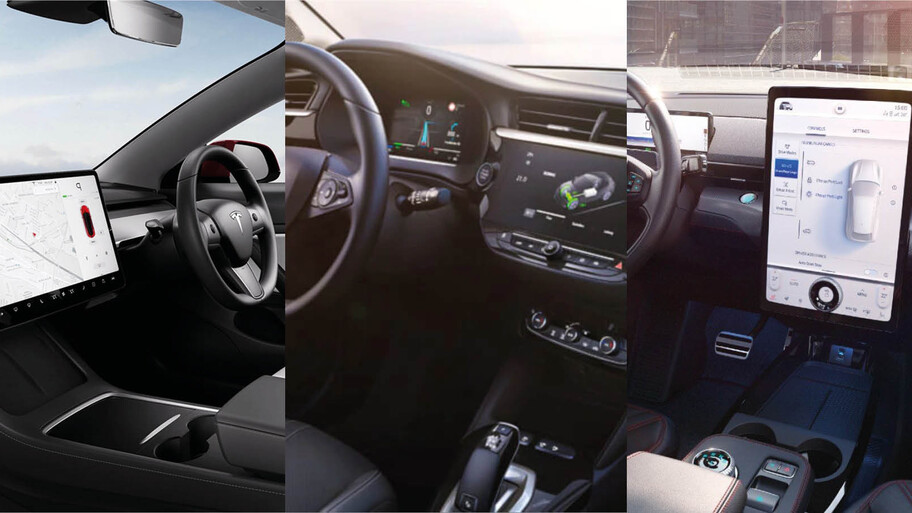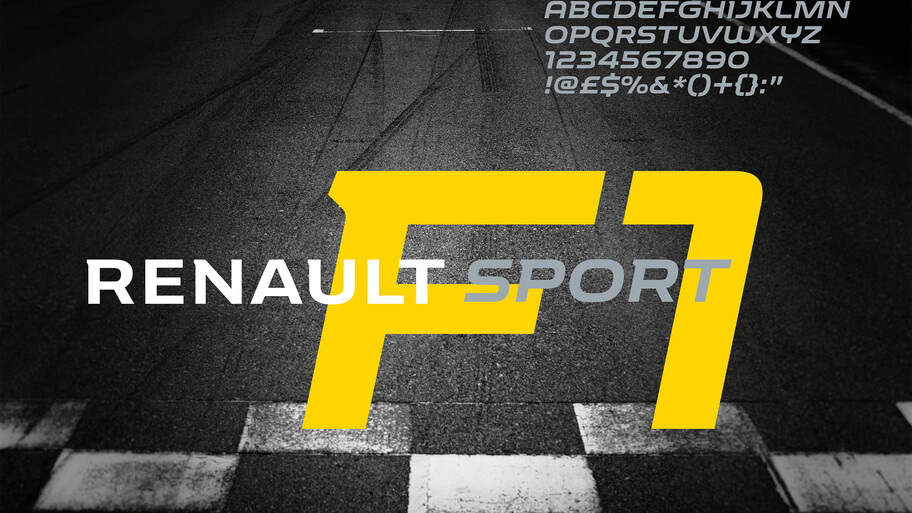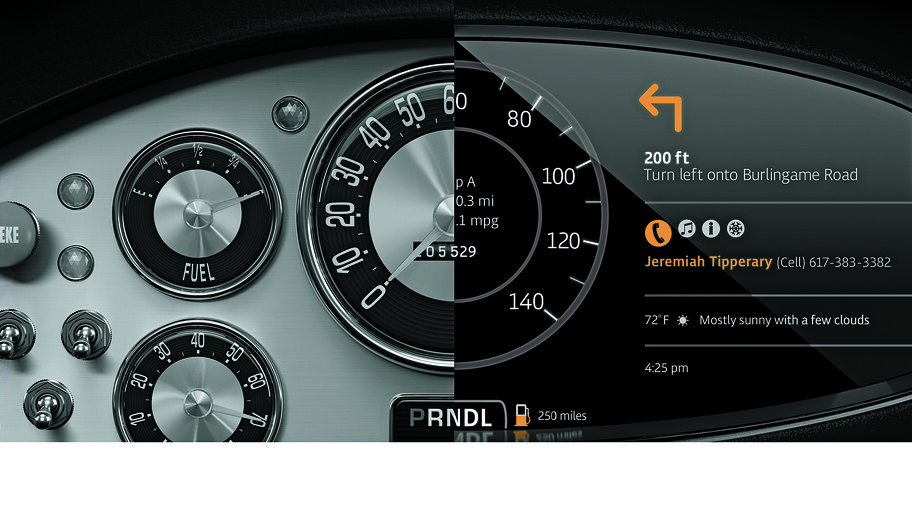
The road ahead.
Today’s cars are nothing like their precursors, and tomorrow’s cars—well, who knows what those will be like? To keep up, automotive companies need to blend their brand, in-car environment, and technology into a cohesive experience that keeps their customers seated for the long haul.
It’s all about the journey.
The days of traditional car ownership are waning, and fast. Modern car buyers read reviews, browse inventory, and even negotiate prices before setting foot on the dealership lot, and proceed to schedule service appointments and complete other customer service tasks online post-sale.
In the middle of all that, of course, is the car itself. Technological innovations are rapidly transforming the driving experience to be more digital and automated. Drivers are presented with an array of high-resolution, touchable screens where they carry out basic functions that were formerly controlled by buttons and knobs.
For automotive brands, the question is simple: How does this all fit together? How do I create a seamless experience from that first touchpoint through the life of the car?
Everybody in.
Often, that journey begins behind the scenes with teams focused on individual elements of that larger customer journey.
But sometimes those teams struggle to work together. In today’s demanding marketplace, however, collaboration can’t be a roadblock to success. Especially not when you’re trying to unite all the various pieces of your brand into one cohesive whole.
While collaboration doesn’t magically happen with the snap of your fingers, it is essential to have the right tools in place. When it comes to assets like fonts, which are central to that cohesive brand experience, it’s crucial to give all your teams to a library of fonts that clearly labeled, easily searched and shared, and accessible from anywhere in the world.
On-brand at top speed.
Nothing is more crucial to your reputation and or more central to your customer’s trust than safety. And while the word “safety” brings to mind of inflating airbags and crumple zones, the fonts you deploy in your vehicles go a long way to keeping your customers focused, attentive, and safe while on the road.
Not all fonts are optimal for this environment. Designs with very similar letter shapes or with minimal contrast, for example, require an extra moment to read as the viewer’s brain sorts out one letter from another. It may not seem like much, but even a brief diversion of the driver’s attention can be problematic, depending on what’s happening around them.
Fortunately, there are plenty of fonts that are optimized for quick-glance environments, and Monotype can help you identify options to suit your needs while complementing your brand.
Solutions for a changing world.
Monotype knows fonts better than anyone. But we also know what it takes to be successful in an evolving marketplace, as we’ve had to adapt to enormous changes in the design and branding world over the past few years.
Our solutions pair our expertise with our experience to provide brands like you with tools to be agile and build lasting customer relationships.
• The world’s best fonts, type designers and foundries.
• Trusted and secure font management.
• Integrated with the tools you use everyday.
Driven by their passion for type, our Studio is the heart of the largest library of fonts in the world. We offer a suite of services that enable brands of all sizes to express their voices through type, helping people to instantly recognize and connect with them.